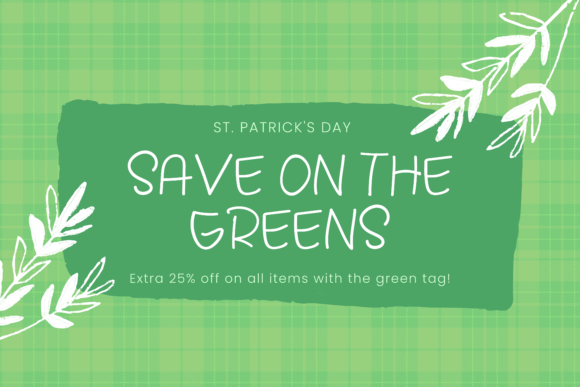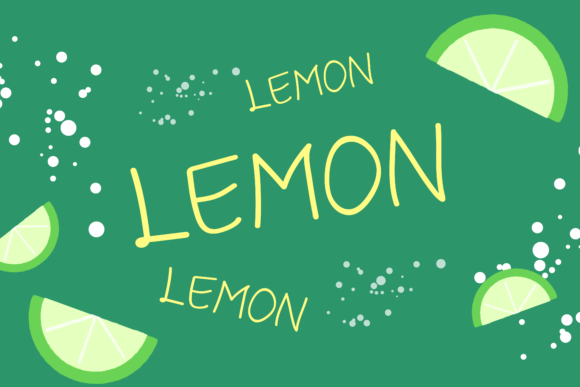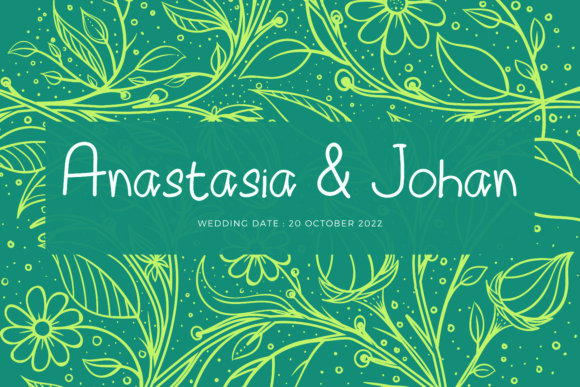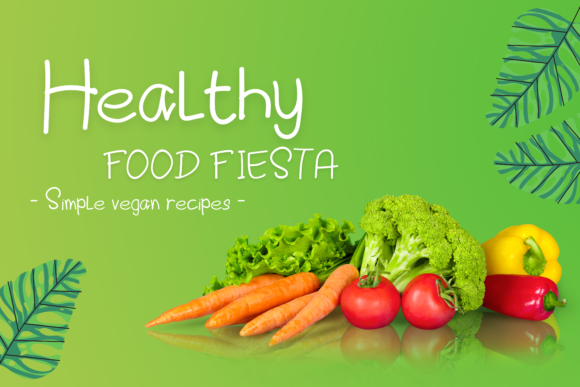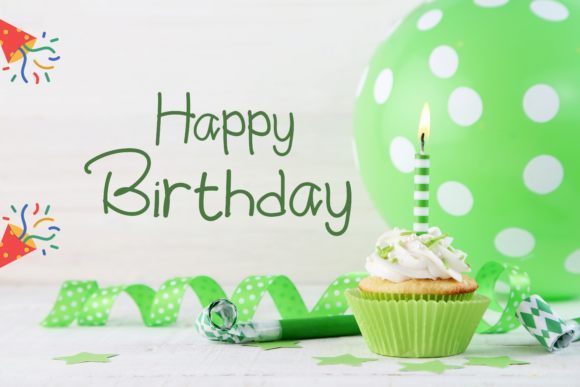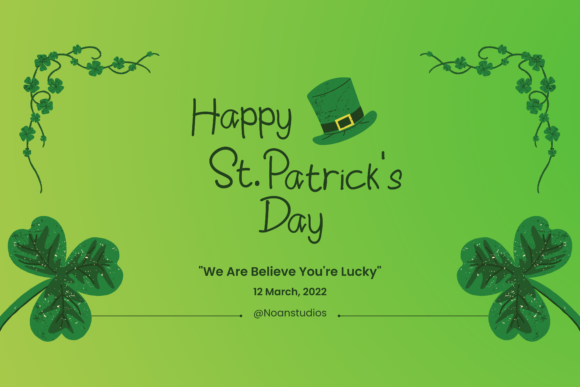
Introducing Blip Blops Font: The Ultimate Handwritten Font for Creative Projects
Are you tired of using the same old fonts for your design projects? Look no further! Blip Blops Font is here to revolutionize your creative endeavors with its simple, fun, and uplifting handwritten style. This customizable font is perfect for designers, crafters, and anyone looking to add a personal touch to their projects.
The Unique Charm of Blip Blops Font
Blip Blops Font boasts a natural and unique style that sets it apart from other fonts. Its handwritten charm makes it an excellent fit for a wide range of design ideas, from playful greeting cards to creative branding projects. The font’s effortless and carefree vibe is sure to capture the attention of your audience and leave a lasting impression.
The versatility of Blip Blops Font is one of its most significant advantages. This font can be used for various design projects, including:
• Digital and print branding materials, such as logos, business cards, and brochures
• Social media graphics, like Facebook and Instagram posts
• Handmade crafts, including DIY signs, cards, and invitations
• Web design, such as headings, titles, and body text
• And many more!
Customization Options
Blip Blops Font is designed to be customizable, allowing you to tailor it to your specific needs. Experiment with different font sizes, colors, and styles to create a unique look that reflects your brand or personal style. You can also combine Blip Blops Font with other fonts to create a distinctive and eye-catching design.
Why Choose Blip Blops Font?
So, what makes Blip Blops Font an excellent choice for designers and crafters? Here are just a few reasons:
• Easy to read: Blip Blops Font is clear and legible, making it perfect for body text and headings
• Unique style: The font’s handwritten style adds a personal touch to any design project
• Customizable: Experiment with different font styles, sizes, and colors to create a unique look
• Versatile: Use Blip Blops Font for a wide range of design projects, from digital to print
Tips for Using Blip Blops Font
To get the most out of Blip Blops Font, here are some tips to keep in mind:
• Pair with other fonts: Combine Blip Blops Font with other fonts to create a unique and visually appealing design
• Experiment with colors: Try out different colors and gradients to add depth and interest to your design
• Play with font sizes: Use different font sizes to create a hierarchy of information and add visual interest
• Keep it simple: Don’t be afraid to keep your design simple and clean – Blip Blops Font shines on its own!
Blip Blops Font is a simple, fun, and uplifting handwritten font that’s perfect for designers, crafters, and anyone looking to add a personal touch to their projects. With its unique style, customization options, and versatility, Blip Blops Font is sure to become a go-to font in your design arsenal. So why wait? Download Blip Blops Font today and let your creativity shine!